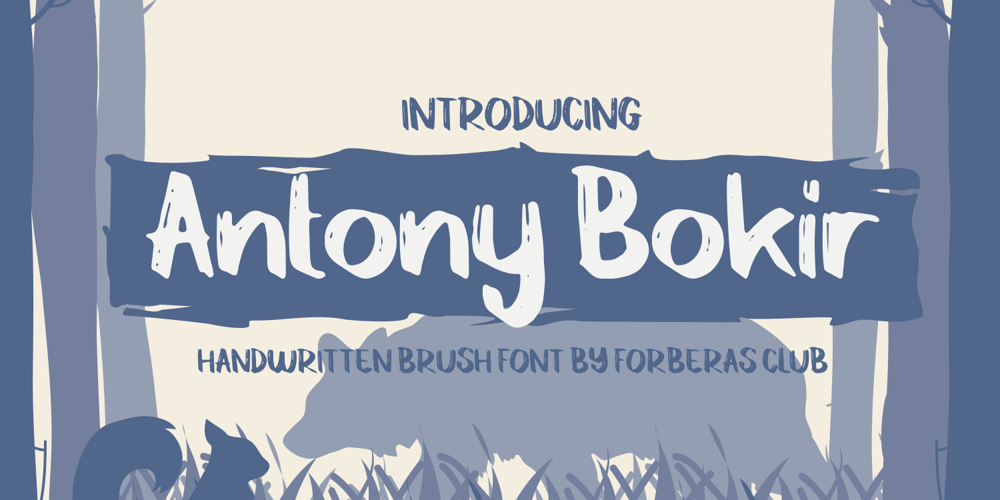
Antoni Bokir
Antoni Bokir font
Antoni Bokir Font Family was designed by ANGGI HERMAWAN and published by Forberas Club. Antoni Bokir contains 1 styles and family package options. Antoni Bokir is brush font with clean and simple font. This font can apply to kids tees, banner, wallpaper, cover and party moment with brush style.